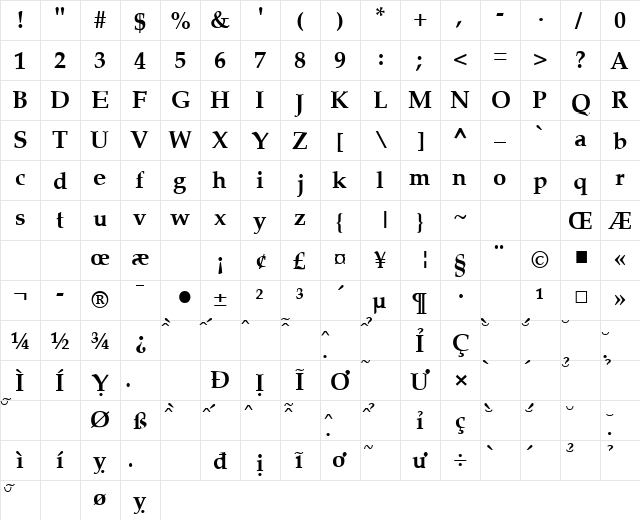
VNI-Palatin Bold
Design Context for VNI-Palatin Typeface
VNI-Palatin offers clean, dependable letterforms without strong stylistic allegiance, making it a practical choice for designers who need flexibility. The heavy weight commands attention and anchors typographic hierarchies.